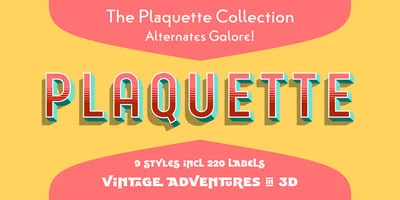
Plaquette Font
Plaquette Font is ideal for commemorative plaques, memorial inscriptions, award certificates, engraved signage, dedication ceremonies, historical markers, bronze monument text, museum plaques, institutional recognition materials, and prestigious acknowledgment displays.
What makes Plaquette Font exciting is its timeless dignity and monumental presence that captures the enduring nature of permanent inscriptions with classical authority and memorial gravitas. This distinguished typeface embodies the essence of lasting commemoration with its carved character forms and monument-inspired proportions that evoke bronze plaques, marble inscriptions, and the solemn beauty of permanent memorials. The font's commemorative character creates an immediate impression of permanence, respect, and the kind of institutional dignity that honors significant achievements and cherished memories.
Plaquette Font family includes regular weight with monumentally crafted character designs featuring engraved proportions and institutional styling. The typeface maintains exceptional readability while showcasing its distinctive commemorative personality through solemnly designed letterforms that seem carved from enduring materials with the precision of master engravers and stone carvers.
Memorial designers consistently choose Plaquette Font for projects requiring authentic commemorative appeal and institutional dignity. This remarkable typeface brings the permanence of lasting recognition to memorial communications, combining classical elegance with enduring craftsmanship to create meaningful tribute experiences. The monumentally designed characters ensure dignified positioning across all applications, making it essential for memorial services, institutional recognition, and any organization seeking to communicate the lasting respect and permanent honor that comes from commemorating significant achievements and cherished memories through Plaquette Font.